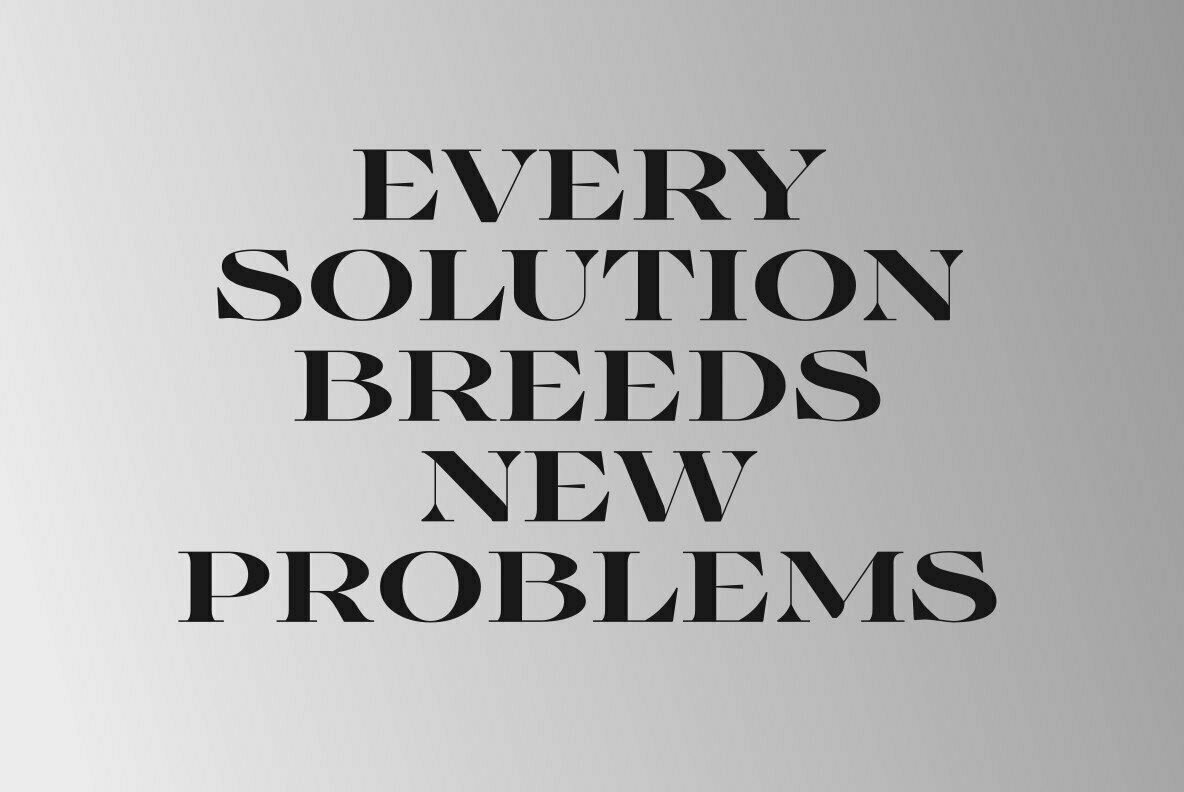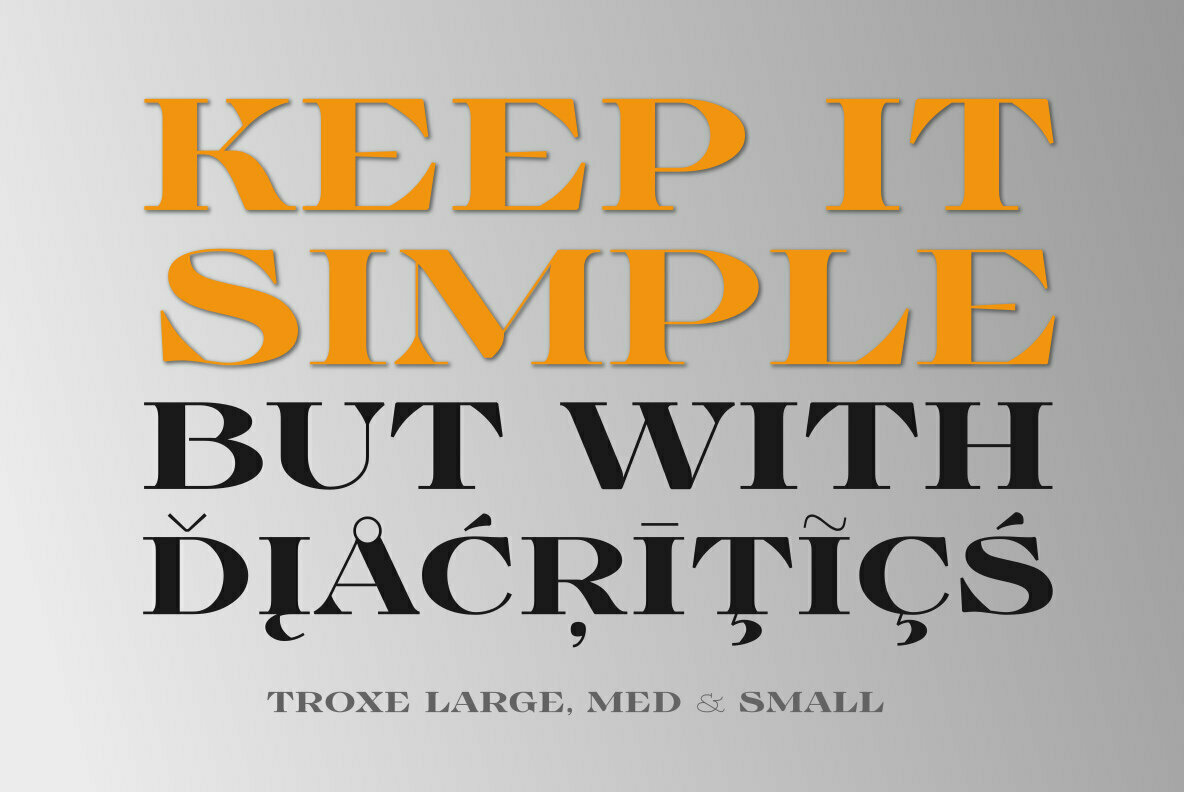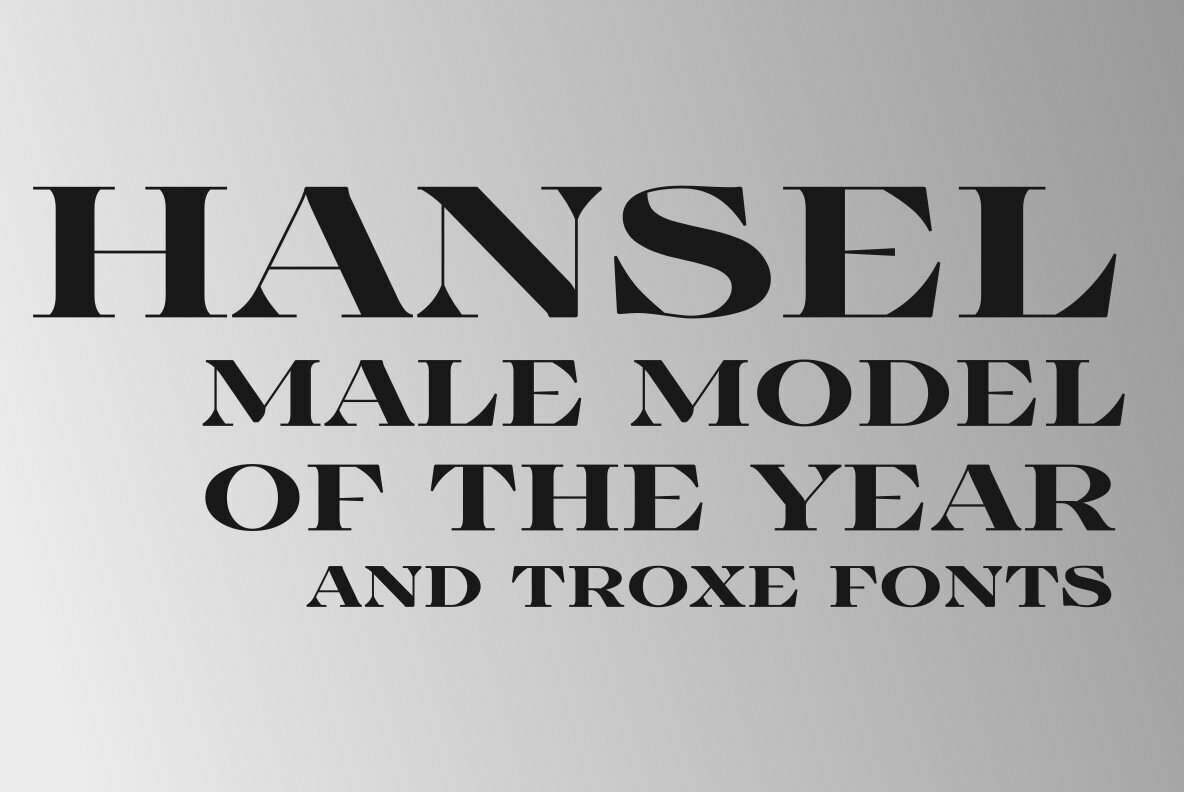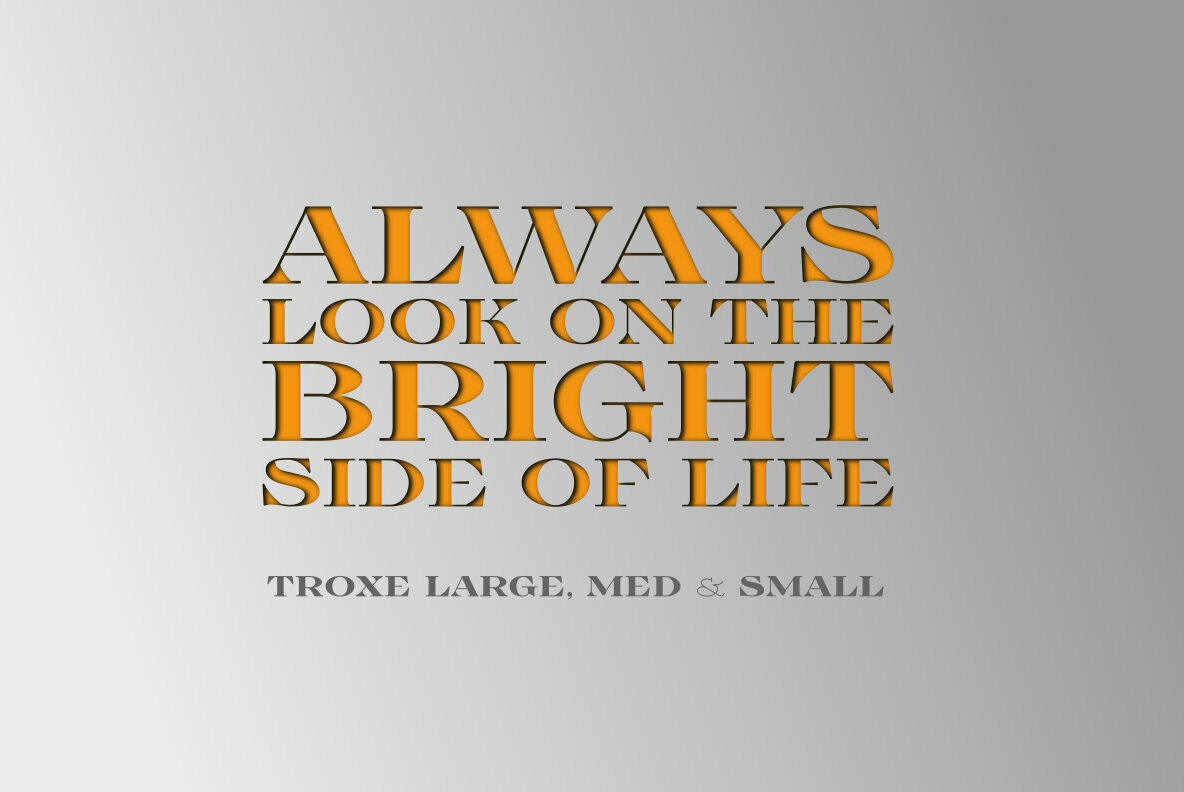
TroxeLMS Font
TroxeLMS is a striking collection of decorative and display fonts designed by Grzegorz Luksza. This family features three optical sizes—Small, Medium, and Large—offering flexibility for various design projects. From logos to invitations, TroxeLMS is crafted to add visual richness to any creative endeavor. TroxeLMS fits a wide array of design needs, especially where bold and eye-catching typography is essential.TroxeLMS: The Art of Decorative Display